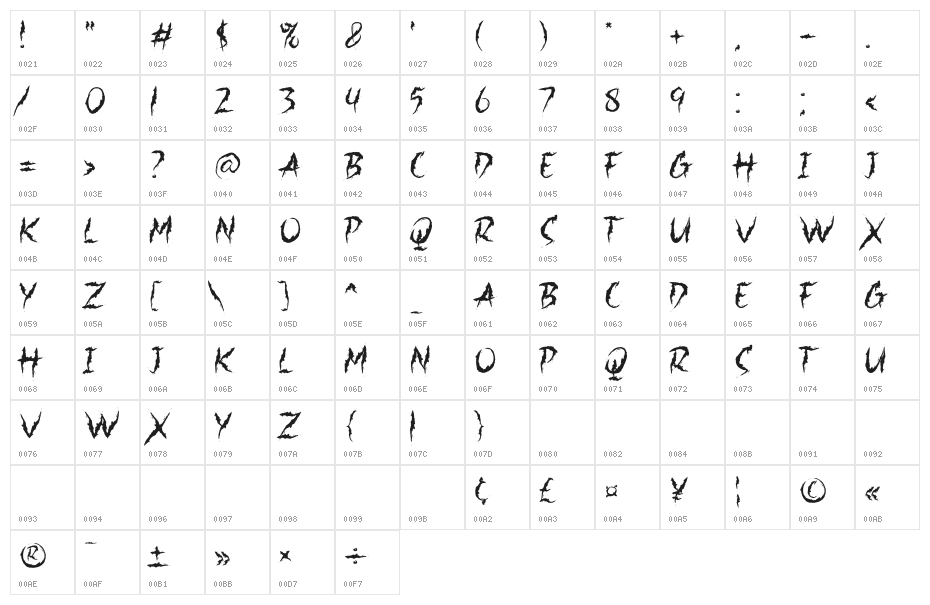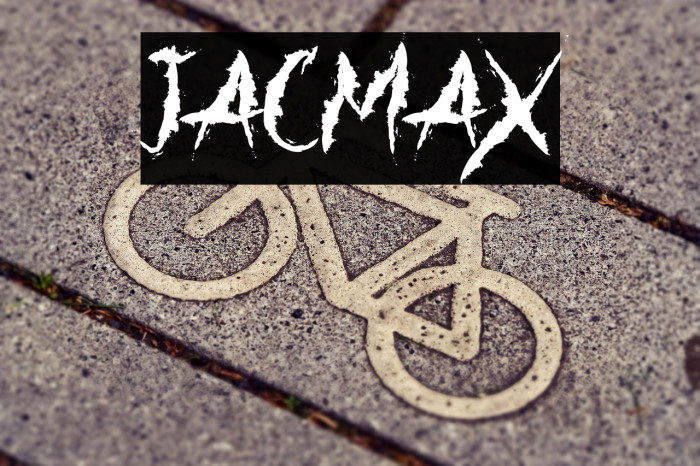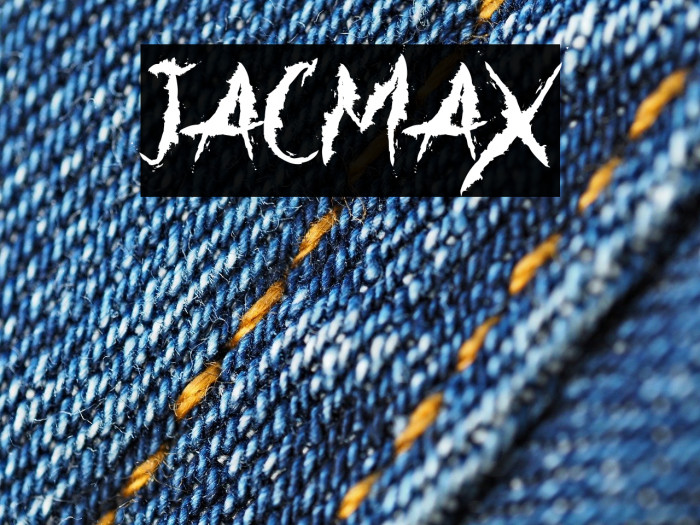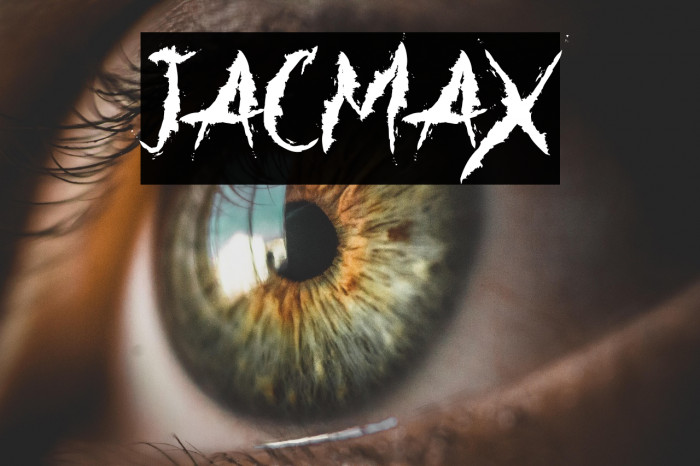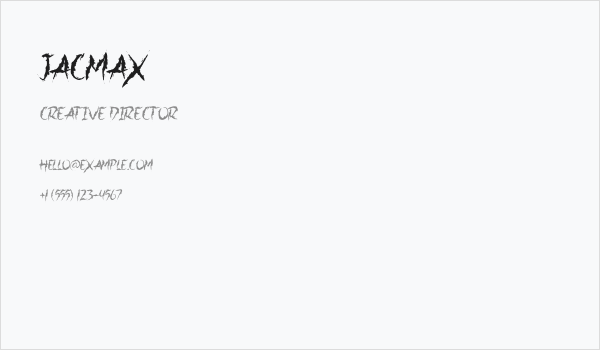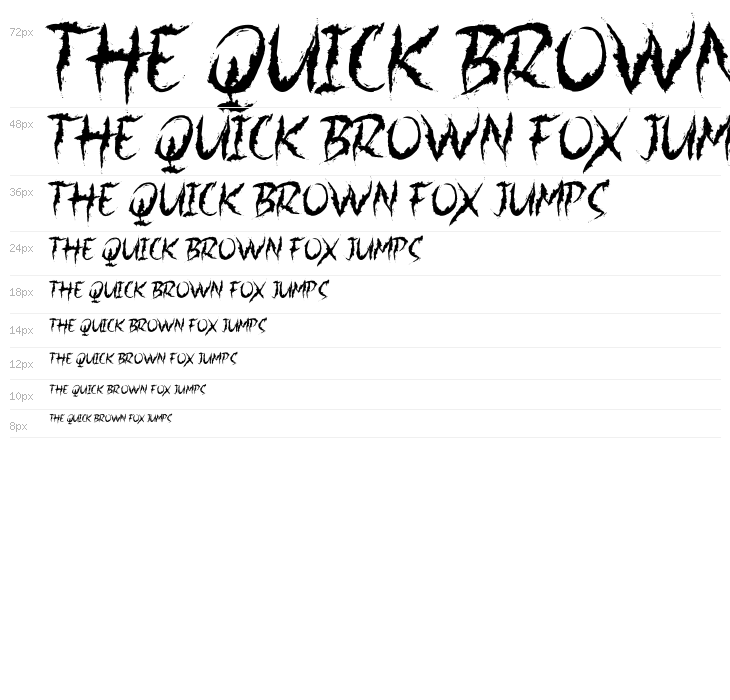
Jacmax Font
Jacmax Description
This font exhibits a bold and aggressive style, characterized by its sharp, jagged edges and irregular strokes. The letters appear as if they were painted with a brush, giving them a dynamic and energetic feel. The uppercase and lowercase letters maintain a consistent style, with a slightly chaotic appearance that adds to its unique charm. Numbers and special characters follow the same design, ensuring uniformity across all elements. This font is perfect for projects that require a strong, impactful visual presence.
| Proposed Projects | Ideal for album covers, horror movie posters, extreme sports branding, and edgy graphic designs. |